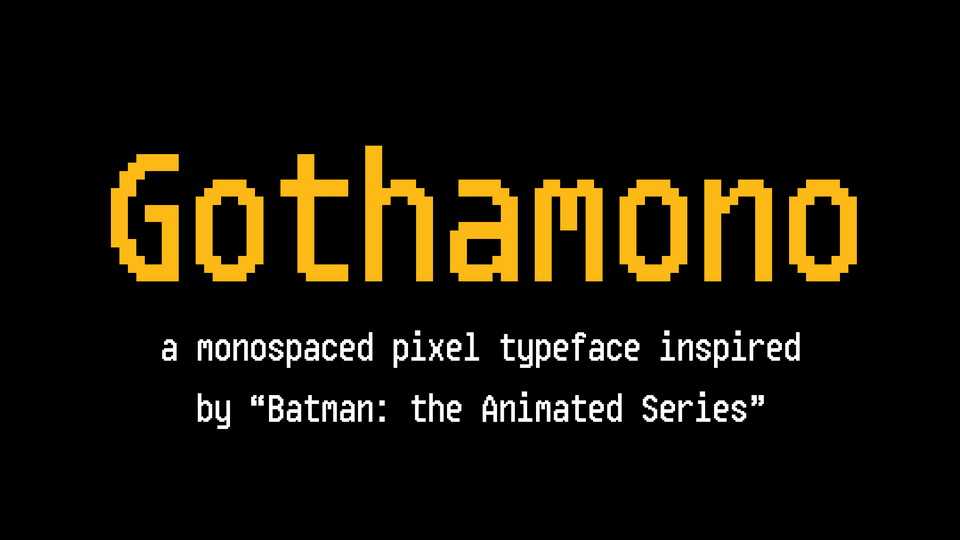
Download Gothamono font, a monospaced pixel typeface inspired by “Batman: the Animated Series”. Gothamono is perfect for games, tech logos, old school digital projects and more.
Designer: Steven Lewis